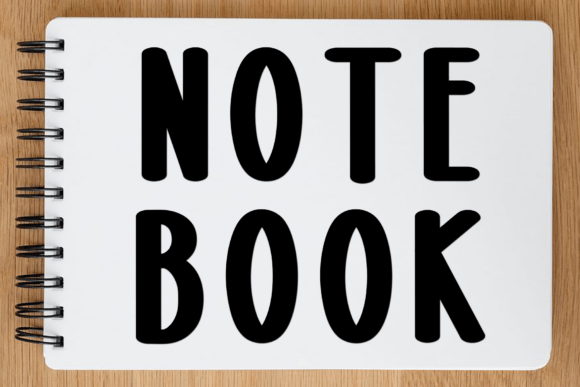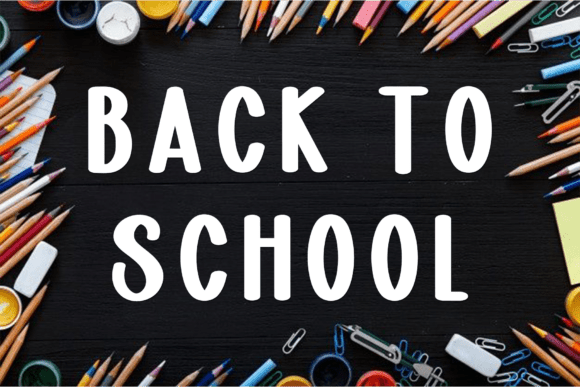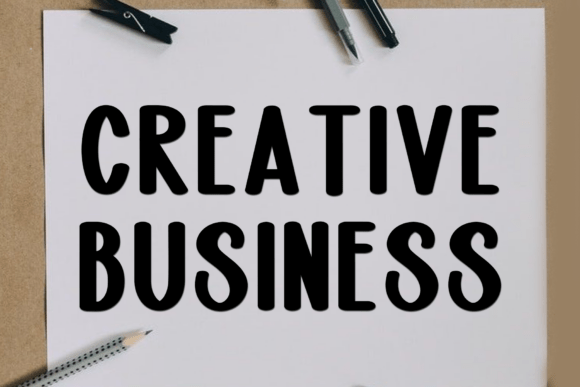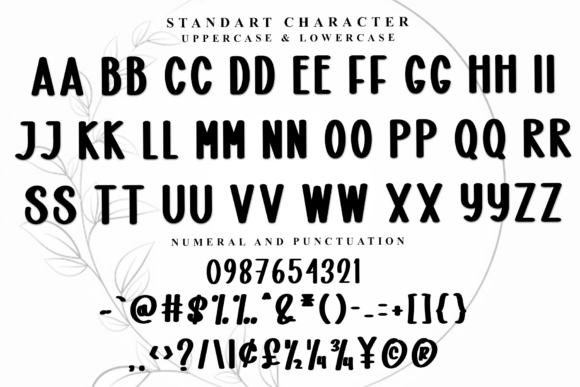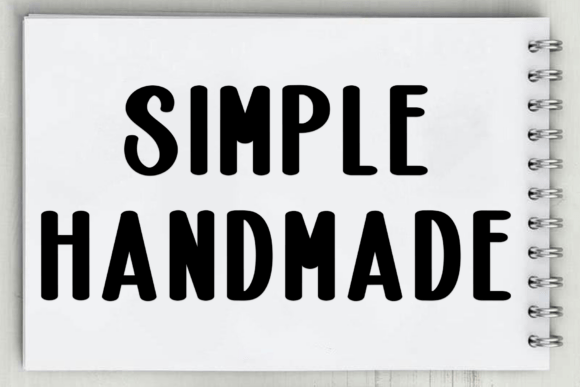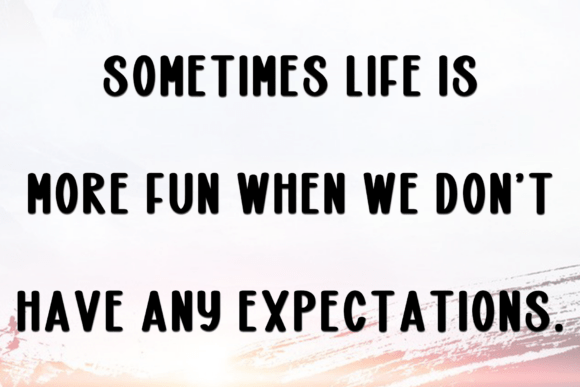
Discover the Timeless Charm of House School Font
Do you remember the feeling of picking up a paintbrush and letting your imagination run wild on a blank canvas? For many of us, that moment sparks a sense of creativity and freedom that’s hard to match. Whether you’re an artist, a designer, or simply someone who loves to express themselves, that feeling is what drives us to create something truly special.
Enter House School Font, a beautiful and unique typeface designed to bring a touch of warmth and personality to your designs. With its distinctive strokes and soft, natural feel, House School Font is perfect for designers who want to add a little extra magic to their work. From crafting beautiful typography to creating eye-catching graphics, this versatile font is sure to become a trusted companion in your creative journey.
Key Features of House School Font
- Font Family: House School Font is a unique, hand-drawn sans-serif font family designed for educational institutions.
- Size: The font family includes 5 weights (Light, Regular, Medium, Bold, and Black) and 2 styles (Regular and Italic) for added versatility.
- Unique Characteristics: The font’s distinctive, child-friendly design makes it perfect for educational materials, such as textbooks, workbooks, and signage.
- Language Support: Supports a wide range of languages, including Latin-based scripts, making it suitable for global educational institutions.
House School Font Review
I recently had the chance to work with the House School Font, and I have mixed feelings about it. On the one hand, here are some things that work well:
- ✨ The font is highly customizable, with a wide range of weights and styles available.
- ✨ It’s highly legible, making it perfect for body text and other long-form content.
- ✨ The font is well-suited for educational and corporate materials, which aligns with its intended use.
On the other hand, here are some limitations I’ve encountered:
- ⚠️ The font can feel a bit too formal and staid at times, which may not be suitable for more creative or artistic projects.
- ⚠️ Some users may find the font to be a bit too “safe” or unremarkable, which can make it blend in with other fonts too much.
Overall, I think the House School Font is a solid choice for educational and corporate materials, but it may not be the best fit for more creative or artistic projects. With some careful customization, it can be a great addition to your design toolkit.
Tips for Getting the Most Out of House School Font
Use House School Font for headings and titles to add a touch of elegance and sophistication to your designs.
Pair House School Font with other fonts to create a unique and eye-catching visual effect.
Experiment with different font sizes and styles to find the perfect balance for your design.
House School Font is perfect for:
Business cards and marketing materials
Education and academic materials
Alternatives to House School Font
Lato is a modern sans-serif font that is highly legible and versatile. It’s ideal for use in digital products, magazines, and websites where a clean and minimalistic look is desired. Compared to House School Font, Lato has a more rounded and friendly feel, making it suitable for a wider range of applications.
Open Sans is a popular sans-serif font that is highly legible and readable. It’s a great choice for use in digital products, websites, and mobile apps where a clean and modern look is desired. Compared to House School Font, Open Sans has a more neutral and professional feel, making it suitable for a wide range of applications.